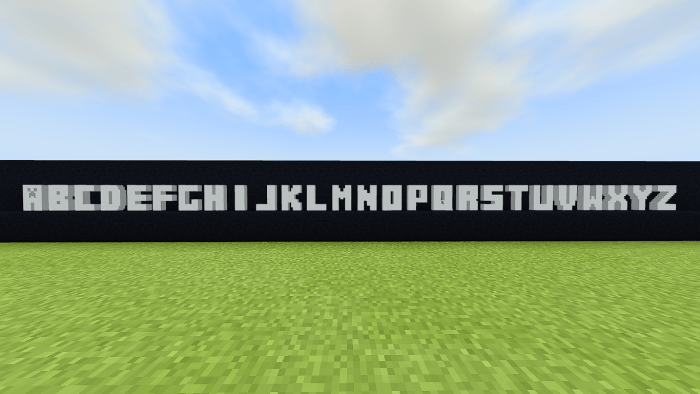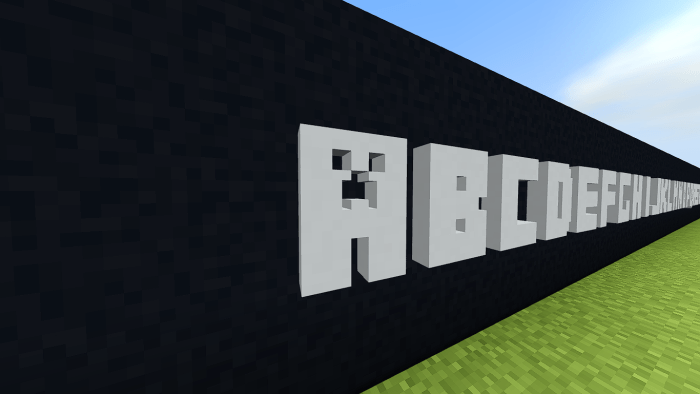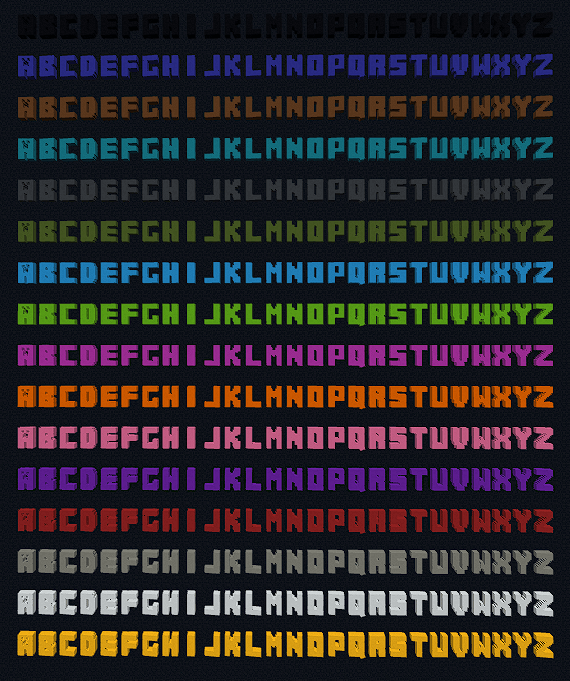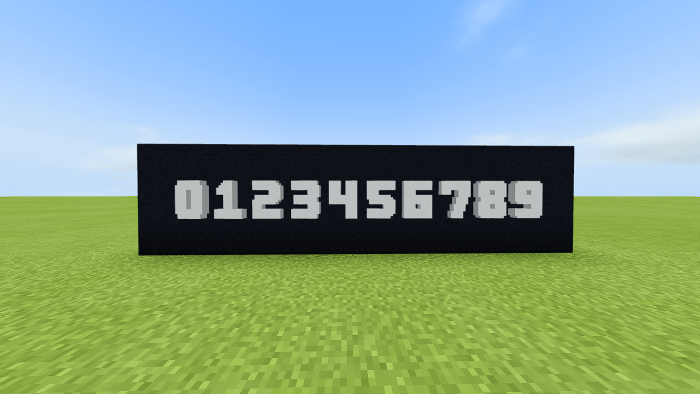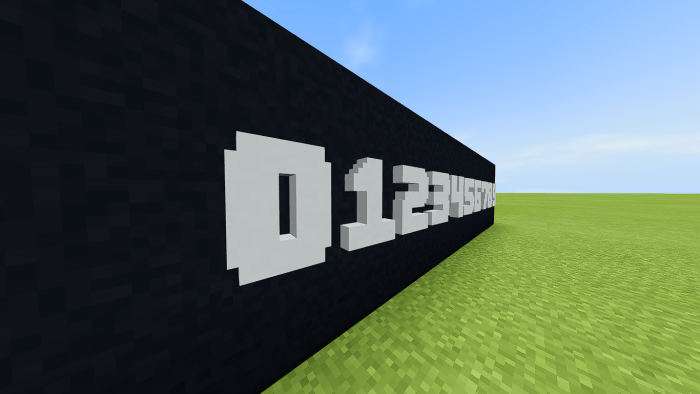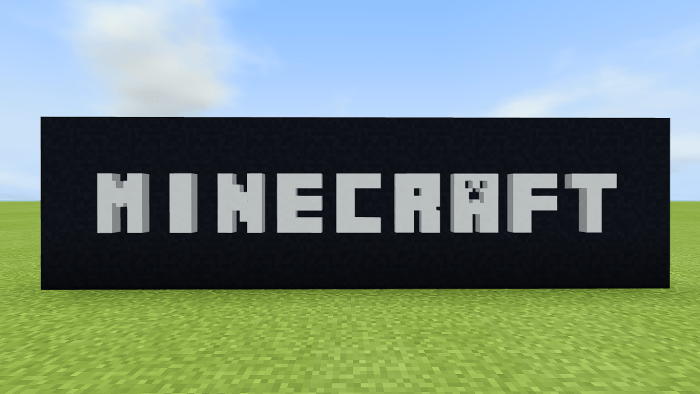
MC: Minecraft 3D Font Addon
This addon adds the English Alphabet as vanity blocks with 16 variety of colors to choose from. The letters can only be obtainable via Creative Mode or through the summon command.
A to Z:
(NEW) 0 to 9:
16 Colors (Concrete Block Textures):
Example Use: